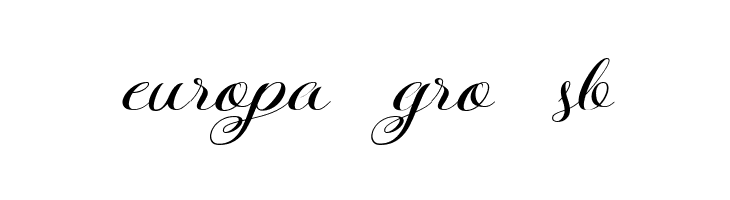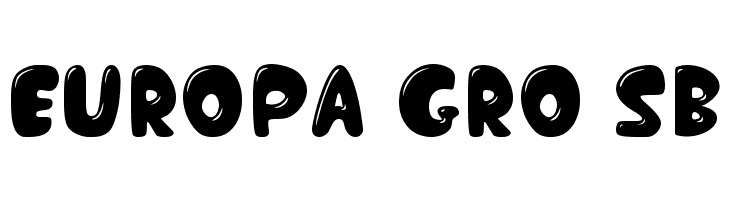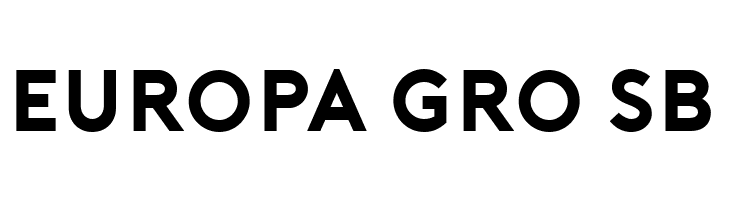
• Quizma Light Demo
• Quizma Thin Demo
• KazincBarcika Script Demo
An elegant script font with intricate swashes and high contrast, perfect for formal designs.
• Chocolate Bar Demo
A playful, bold typeface with rounded, bubbly characters ideal for fun designs.
• Porter Bold DEMO
A bold, modern sans-serif font with clean lines and geometric structure.
• Halftone Poster Demo
A bold, textured font with a vintage halftone effect.
• Pretty Girls Script Demo
A whimsical and elegant script font with flowing, cursive letters and intricate loops.
• Haze Dark Demo
A bold, brush-style font with dynamic, expressive strokes.
• Haze Light Demo
A bold, brush-style font with dynamic, hand-drawn strokes.
• Alpaca Scarlett Demo
A bold, geometric sans-serif font with a modern and clean design.